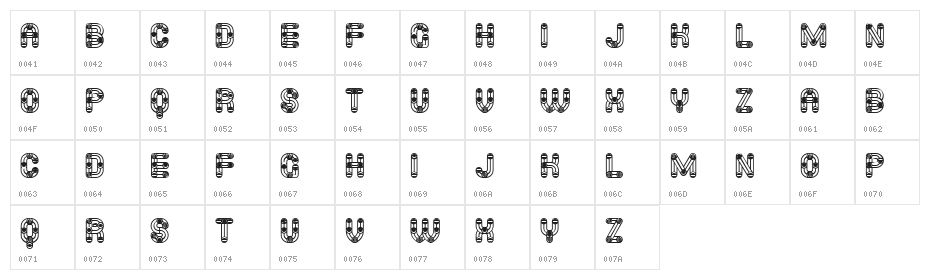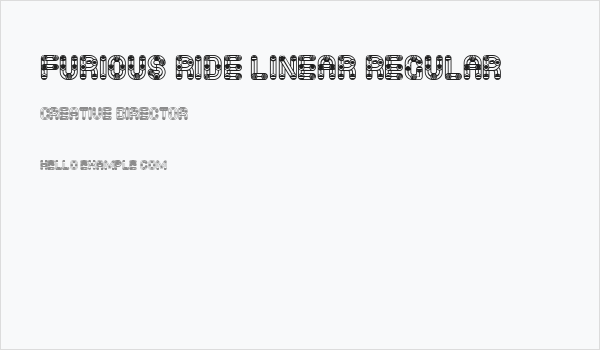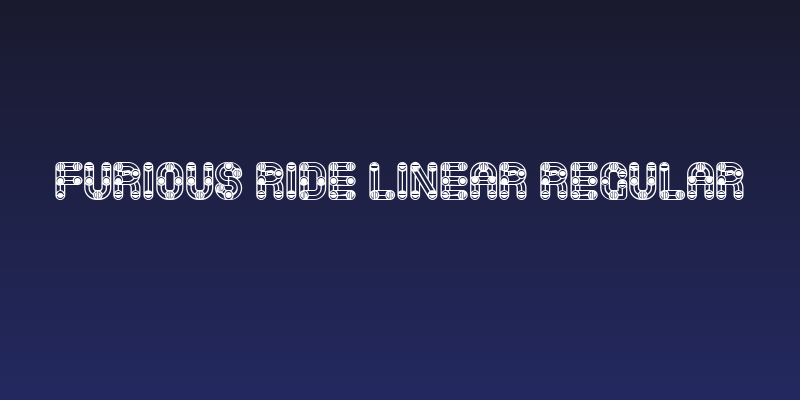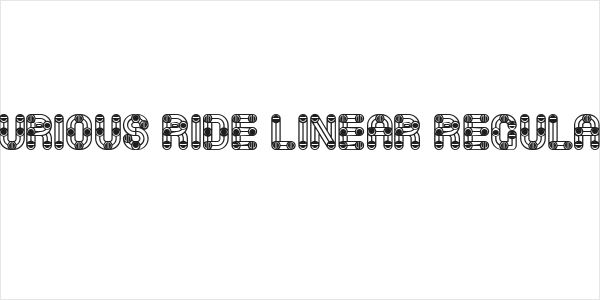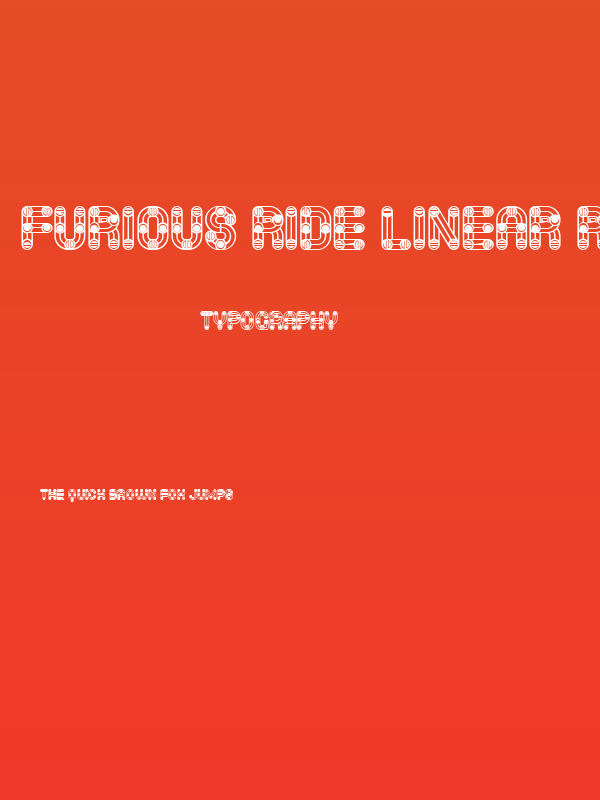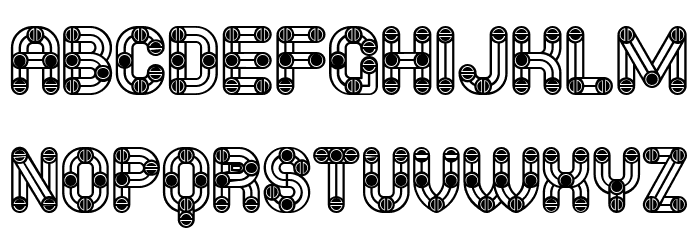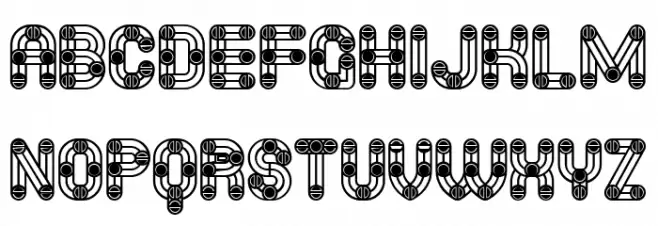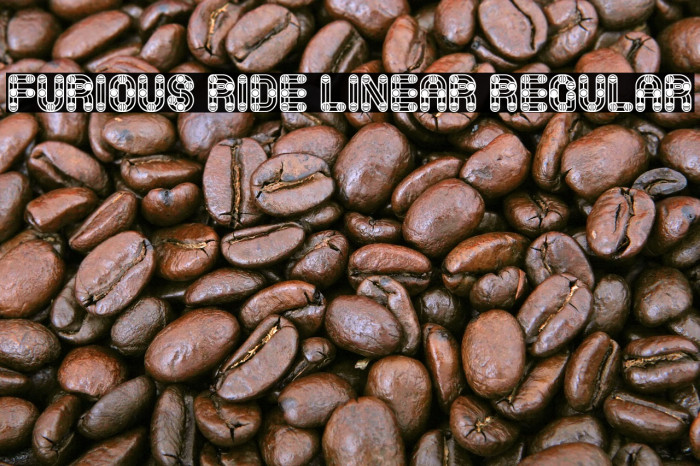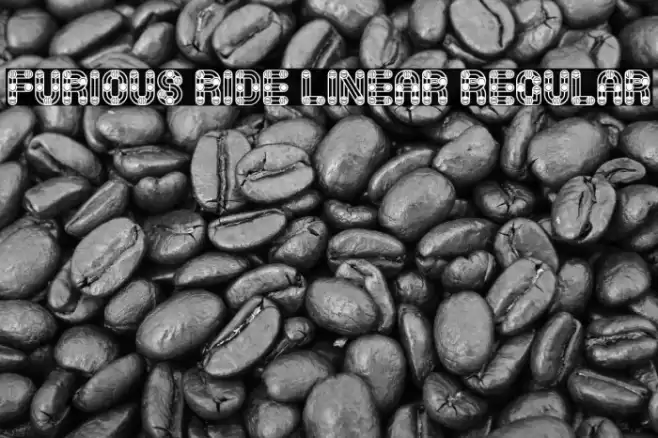
Furious Ride Linear Regular Font
Furious Ride Linear Regular Description
This font features a bold and dynamic design with a unique linear pattern running through each character. The letters are constructed with a combination of thick and thin lines, creating a sense of movement and energy. The geometric shapes within the characters give it a modern and industrial feel, making it stand out in any design. The uppercase letters are particularly striking, with their intricate line work and bold presence. This font is perfect for projects that require a strong visual impact and a contemporary aesthetic.
| Use Case | Logos, Headlines, Posters |
| Proposed Projects | Ideal for branding, posters, album covers, and any project needing a strong visual impact. |